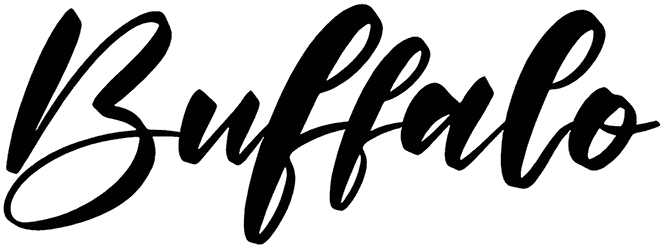
Buffalo Font
A script font like Buffalo, with its alarming vibe and natural aspiration, is a clever pickup to image creativity and art. This calligraphy font, while incorporating two distinct styles, offers you variety and flexibility as you prefer.
Based on your preference, Buffalo is one of the soundest fonts that elevates your design to a higher level and enhances posters, book covers, special quotes, and more. Who wouldn’t appreciate a mash-up of traditional, along with just a tinge of urban vibes?